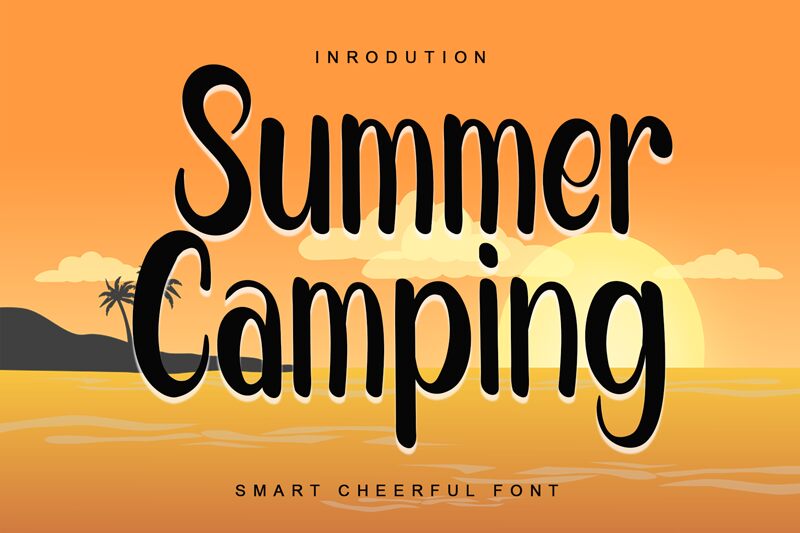
Summer Camping
Summer Camping font by Creatype Designer is a whimsical and stylish handwritten font with organic shapes that add charm and character to any layout. It has a condensed width, along with a modern casual tone & friendly appeal that instantly connects with the reader. Some vintage flair and retro influences can also be noticed in the general letter structure.
Create classy titles on a headline, invitation cards, posters, banners, menus design social media ads, wordmark logos & logos in general where letters are combined in an artistic way. Enjoy using this free calligraphy font on other product packaging design projects or simply present it in full on typography posters.